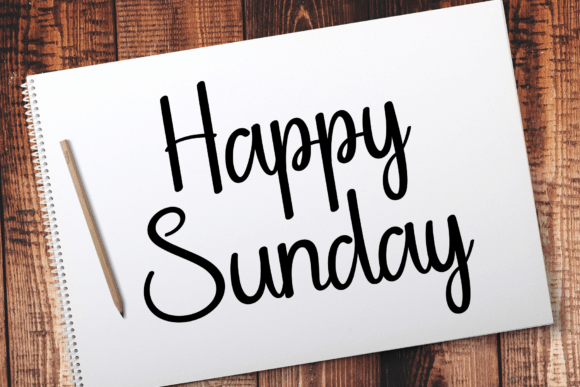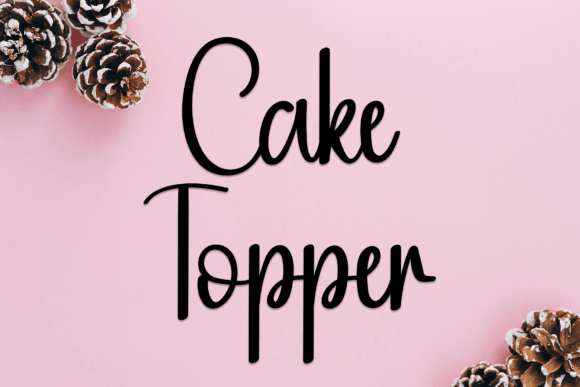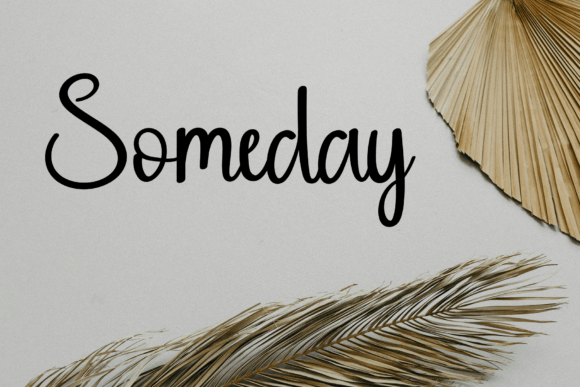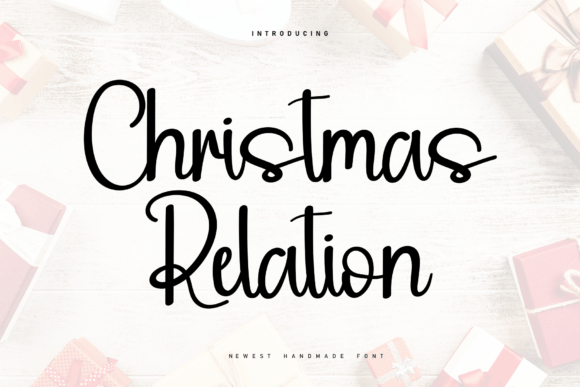
Introduction to Christmas Relation Font
Christmas Relation is a warm, slightly bouncy handwritten script font that merges the cozy feel of personal penmanship with a festive, playful spirit.
It features a medium weight and a charming, imperfect connection between letters, giving it a friendly and genuinely handcrafted quality The uniqueness of this typeface lies in its rounded terminals and casual swashes , which allow it to be effortlessly versatileโ€”equally suitable for a cake topper or a holiday cardโ€”while retaining an immediate sense of fun and approachability.
Key Features of Christmas Relation Font
Why Choose Christmas Relation Font?